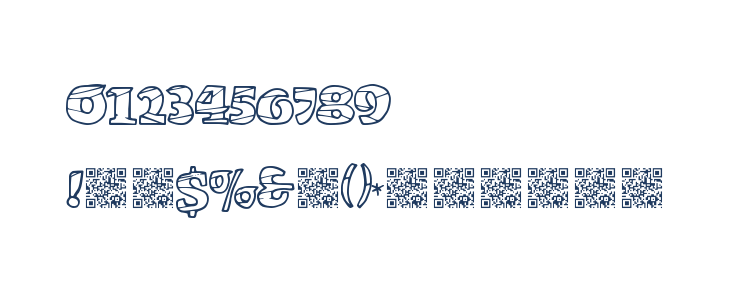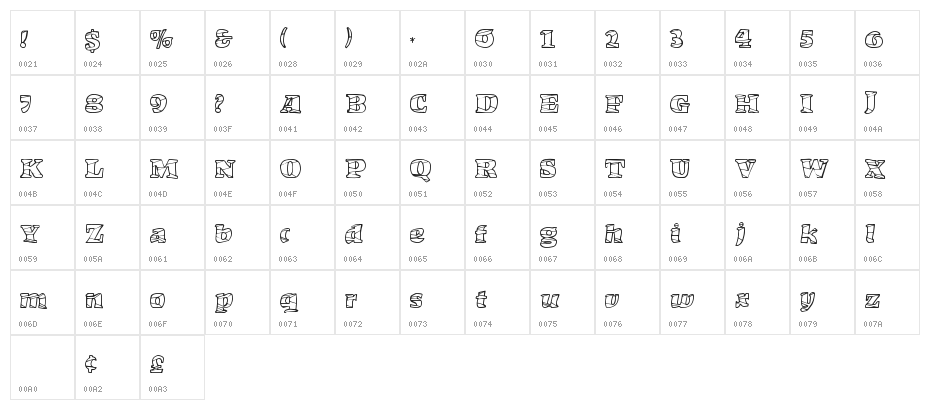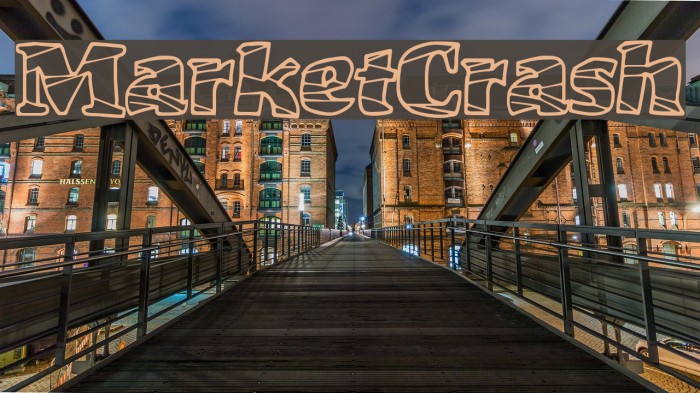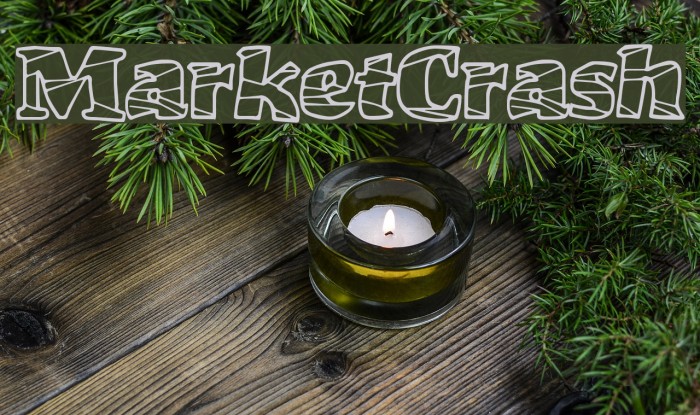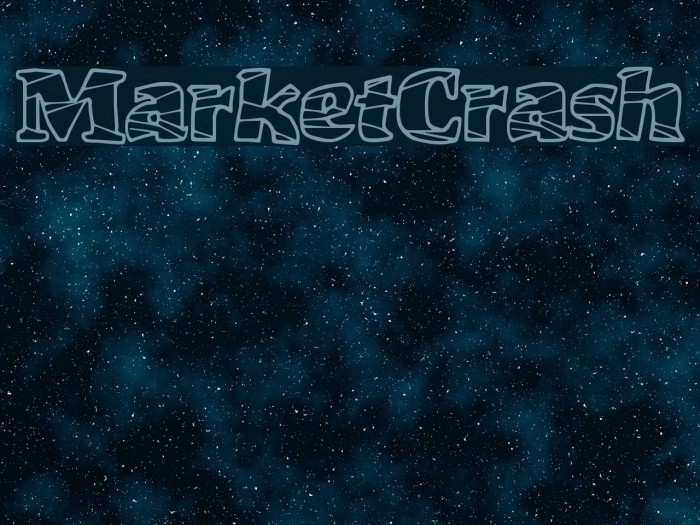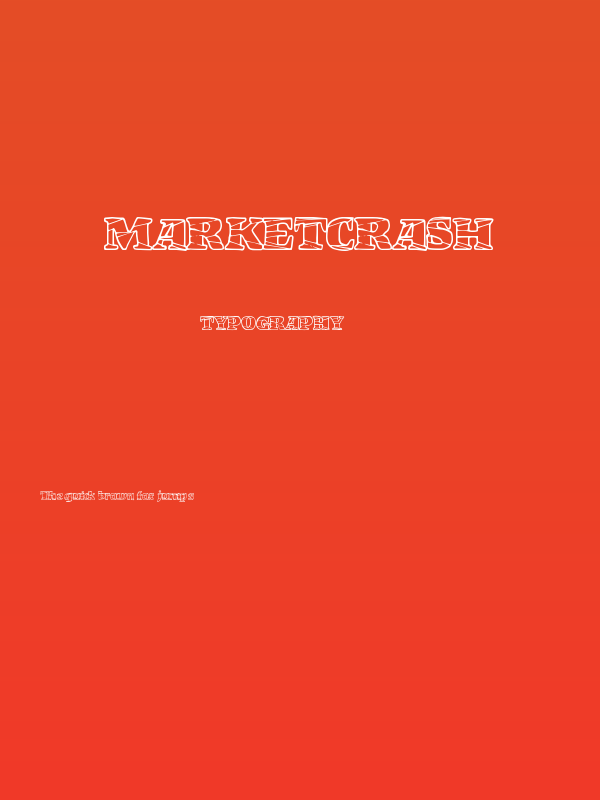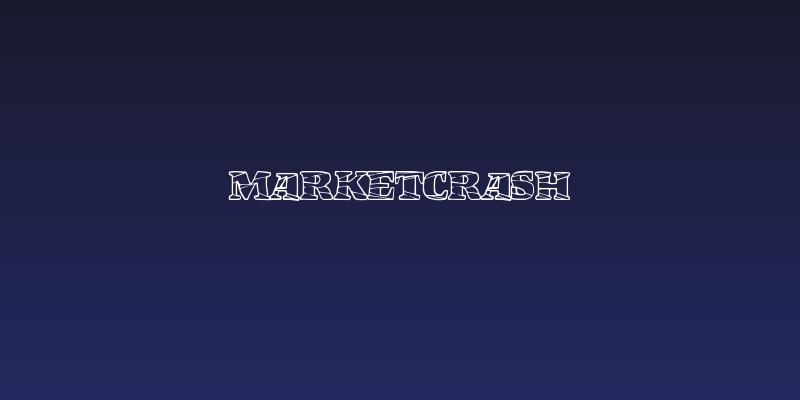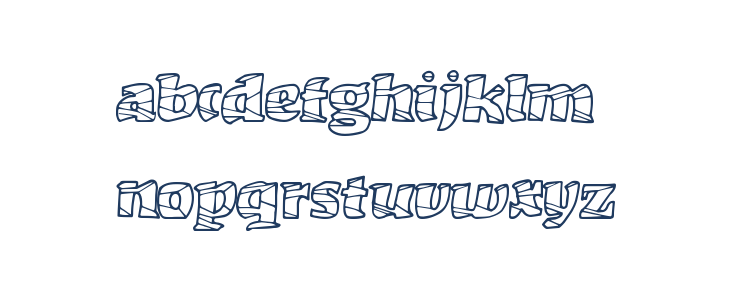
MarketCrash Font
MarketCrash Description
This font features a bold, decorative style with a three-dimensional effect that gives each character a unique, layered appearance. The letters are outlined with a thick black stroke, creating a striking contrast against the white interior. The design incorporates a playful, almost graffiti-like aesthetic, making it stand out in any context. The uppercase and lowercase letters maintain a consistent style, while the numbers and special characters follow the same design principles, ensuring uniformity across all elements. This font is ideal for projects that require a bold statement or a creative touch.
| Proposed Projects | Ideal for posters, album covers, branding materials, and any project that requires a bold, artistic flair. |